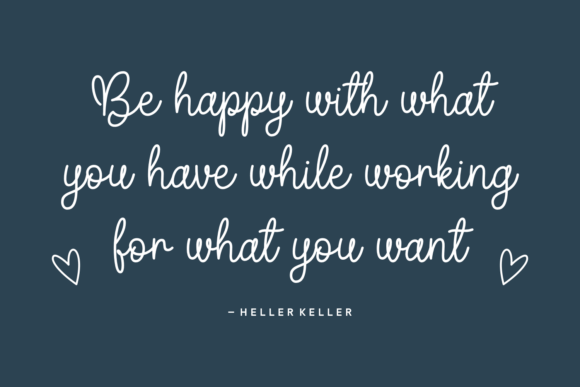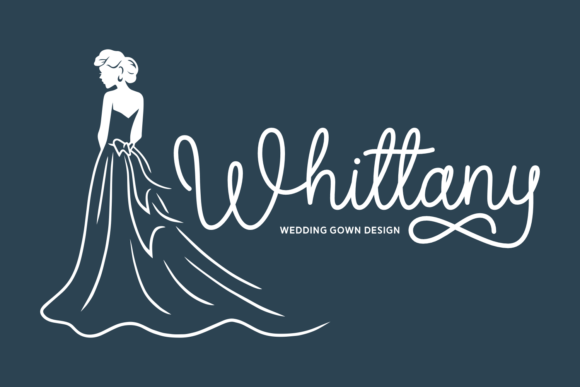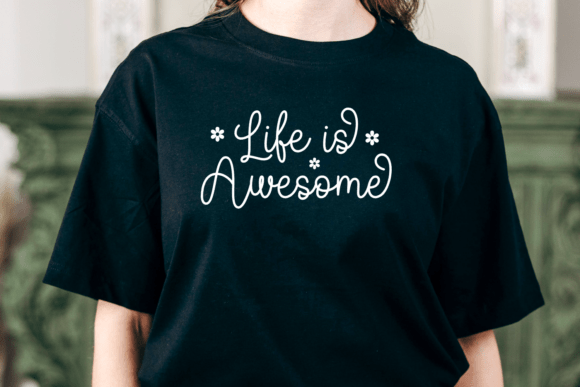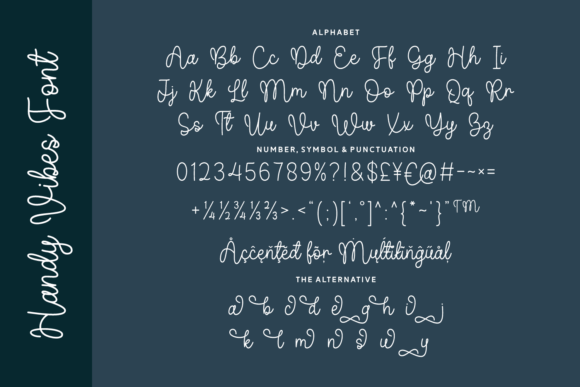
Introducing Handy Vibes Font: The Perfect Handwritten Touch for Your Designs
Are you a designer or crafter looking for a font that can add a personal touch to your creations? Look no further than Handy Vibes Font, a charming monoline font that is sure to delight. With its casual strokes and lovely heart-shaped alternates, Handy Vibes is the perfect choice for greeting cards, product packaging, and crafts that need a handwritten feel.
What is Handy Vibes Font?
Handy Vibes Font is a monoline font, which means that it features a single line of varying thickness to create a smooth, fluid look. This style of font is perfect for creating a casual, laid-back feel that is perfect for a wide range of design projects. The font is also highly versatile, making it suitable for use in a variety of contexts, from digital designs to print materials.
Key Features of Handy Vibes Font
So what makes Handy Vibes Font so special? Here are just a few of its key features:
• Casual strokes: The font features casual, handwritten strokes that give it a relaxed, friendly feel.
• Heart-shaped alternates: The font includes lovely heart-shaped alternates that can be used to add a touch of whimsy and personality to your designs.
• Monoline design: The font’s monoline design makes it highly versatile and suitable for use in a wide range of contexts.
Uses for Handy Vibes Font
So what can you use Handy Vibes Font for? The possibilities are endless, but here are a few ideas to get you started:
• Greeting cards: Add a personal touch to your greeting cards with Handy Vibes Font.
• Product packaging: Use Handy Vibes Font to create custom product packaging that stands out from the crowd.
• Crafts: Add a handmade touch to your crafts with Handy Vibes Font.
• Digital designs: Use Handy Vibes Font in your digital designs, such as social media graphics and blog posts.
Why Choose Handy Vibes Font?
So why should you choose Handy Vibes Font for your design projects? Here are just a few reasons:
• Unique and eye-catching: Handy Vibes Font is a unique and eye-catching font that is sure to grab attention.
• Highly versatile: The font is highly versatile and can be used in a wide range of contexts.
• Easy to read: Despite its casual, handwritten feel, Handy Vibes Font is easy to read and understand.
Tips for Using Handy Vibes Font
Here are a few tips for using Handy Vibes Font in your design projects:
• Use it sparingly: While Handy Vibes Font is a beautiful font, it can be overwhelming if used too much. Use it sparingly to add a touch of personality to your designs.
• Experiment with different colors: Handy Vibes Font looks great in a variety of colors, so don’t be afraid to experiment and find the perfect color for your design.
• Pair it with other fonts: Handy Vibes Font can be paired with other fonts to create a unique and eye-catching look.
In conclusion, Handy Vibes Font is a charming monoline font that is perfect for adding a personal touch to your design projects. With its casual strokes and lovely heart-shaped alternates, it’s a sweet pick for greeting cards, product packaging, and crafts that need a handwritten feel. Whether you’re a designer or crafter, Handy Vibes Font is a great choice for anyone looking to add a touch of personality to their creations.